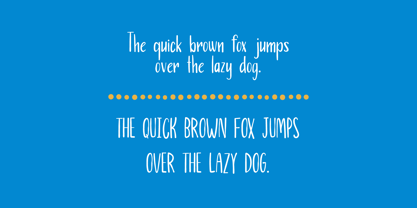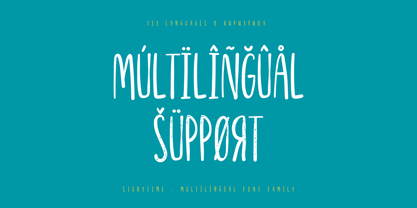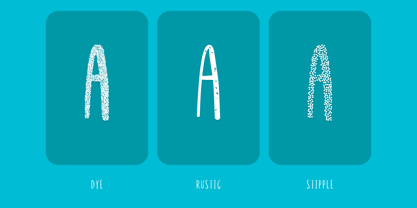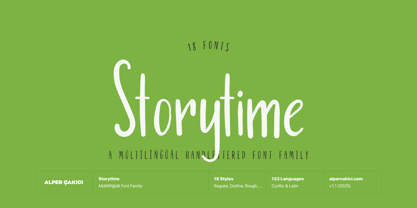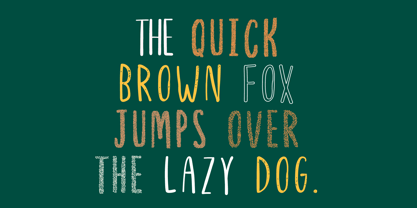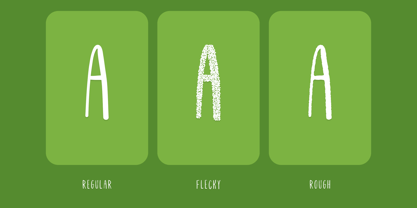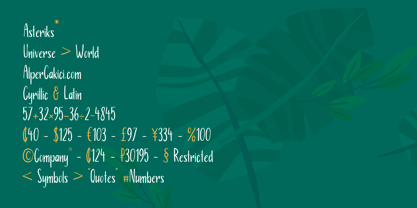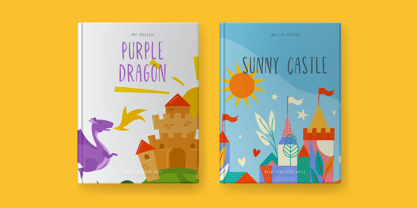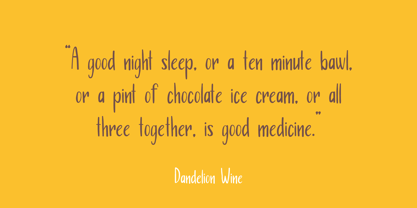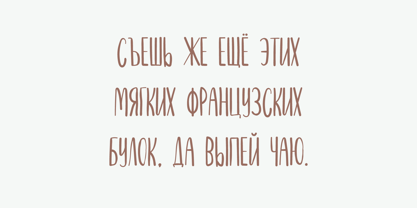
Storytime
by AlperCakici
The Storytime Font Family was designed by Alper Çakıcı and published by AlperCakici. Storytime contains 18 styles and family package options. More about this family
Storytime is a tall, pen-made handmade script font family designed for warm, expressive typography. Created from real handwritten strokes, its organic personality flows across 18 styles, including Regular, Italic, Rough, Rustic, Outline, Dye, Stipple, Flecky, and more—each with matching italics. With its natural texture and playful movement, Storytime brings an authentic human touch to branding, packaging, posters, invitations, quotes, and editorial work. Extensive language support covers over 130 languages (Cyrillic too), making Storytime a powerful choice for global design. Whether you need a clean handwritten look or a textured, gritty script, the Storytime family adapts beautifully. Let your words feel personal, warm, and handcrafted—welcome to Storytime.
Designers: Alper Çakıcı
Foundry: AlperCakici